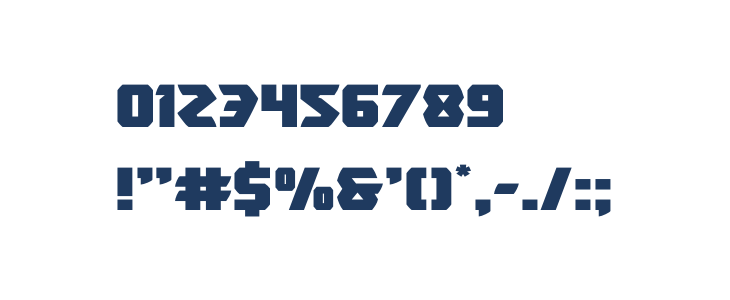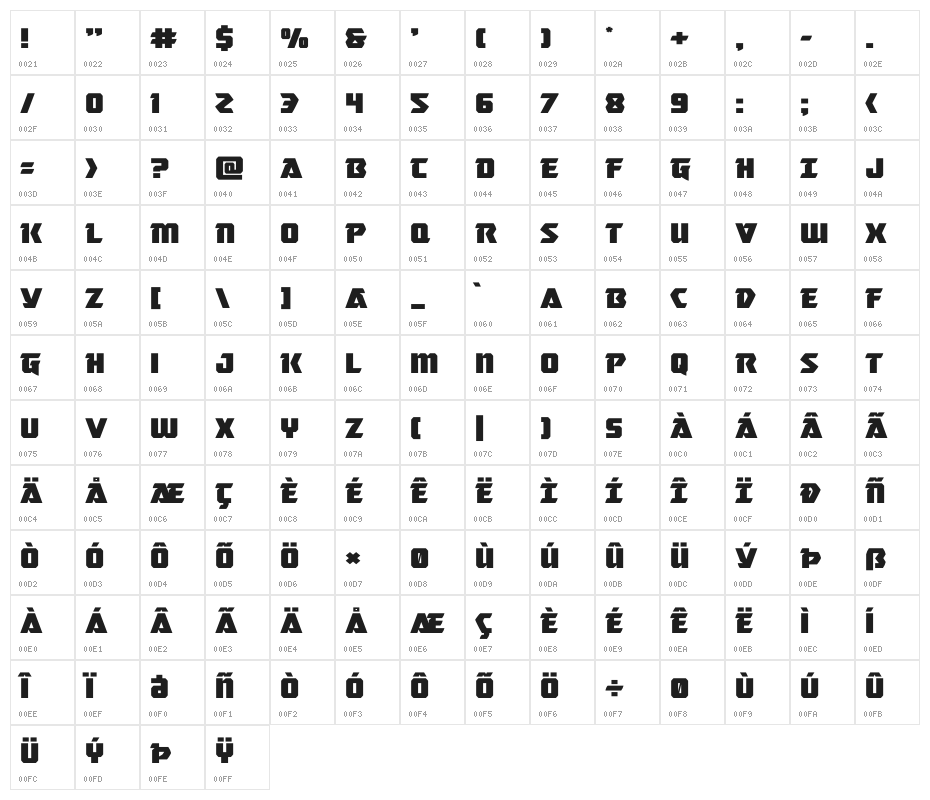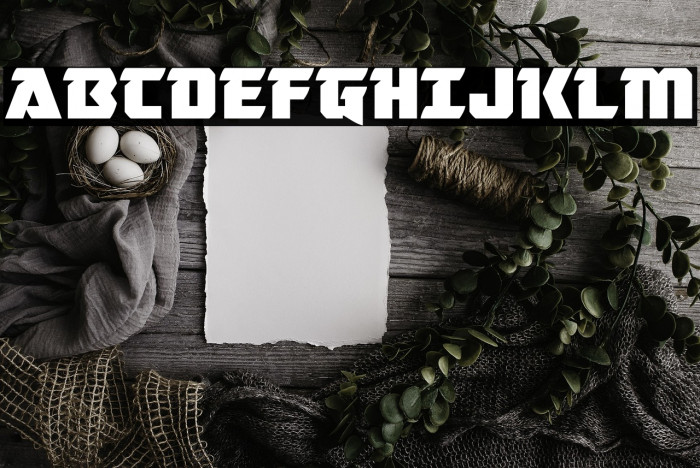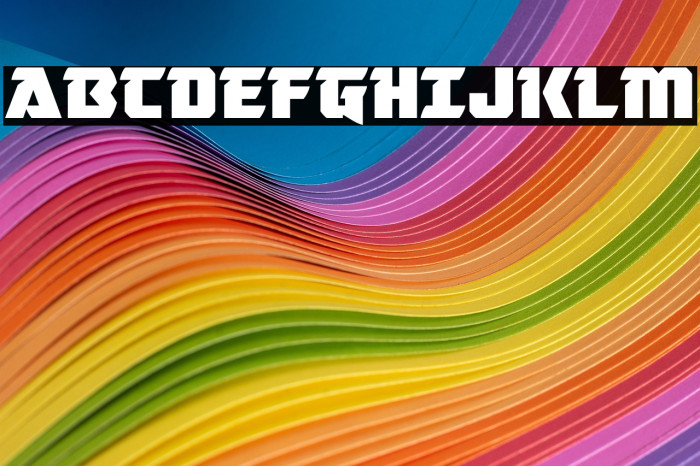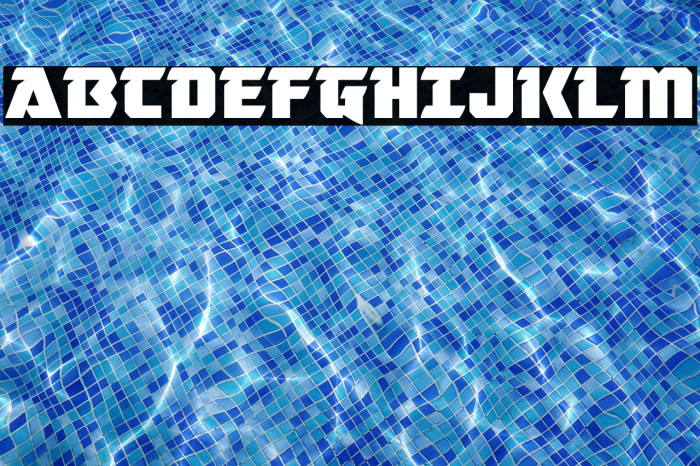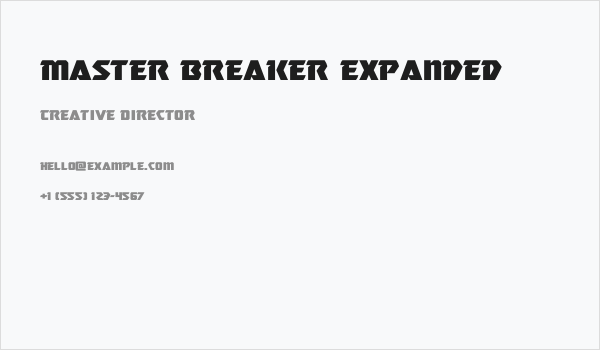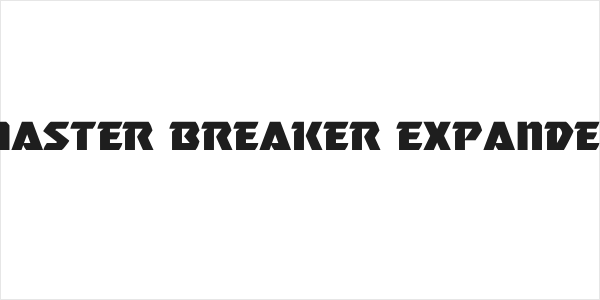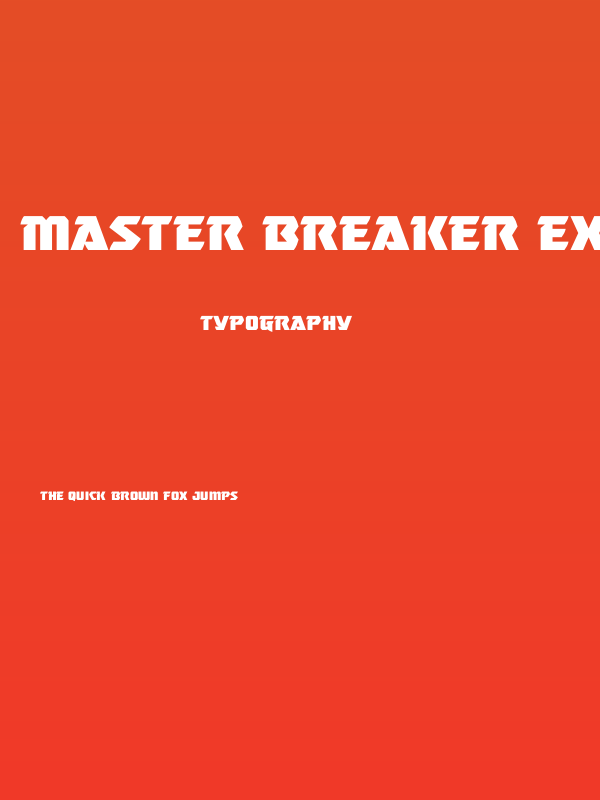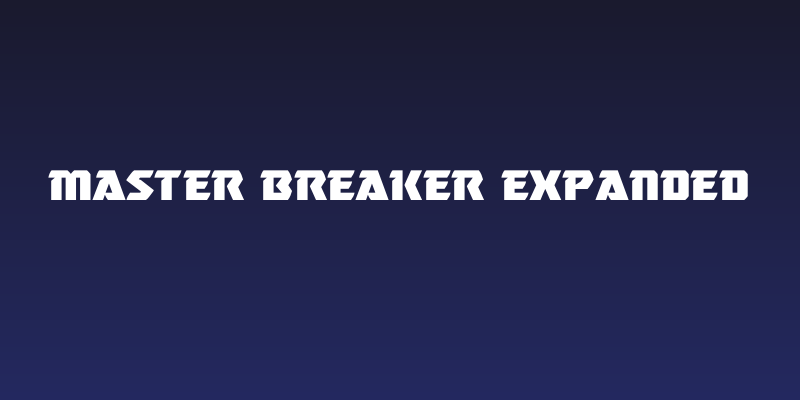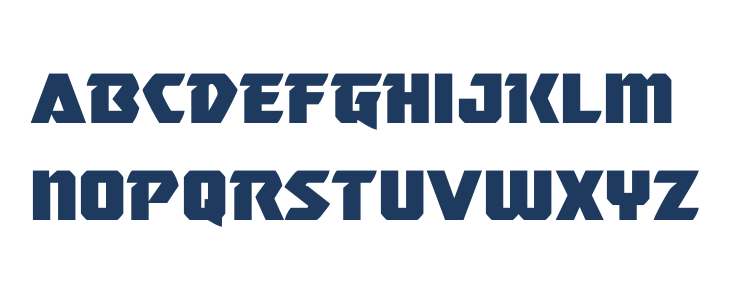
Master Breaker Expanded Font
Master Breaker Expanded Description
This font features a bold, geometric design with sharp angles and a futuristic aesthetic. The characters are uniformly wide, giving a sense of strength and stability. The uppercase letters are particularly striking, with a blocky appearance that commands attention. The numerals and special characters maintain the same bold style, ensuring consistency across all text. This font is ideal for projects that require a modern and impactful look, such as technology-related branding or video game titles.